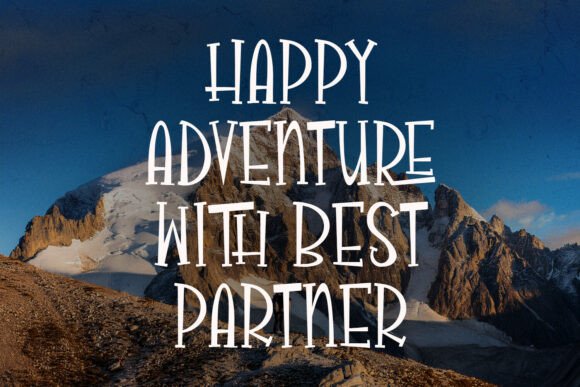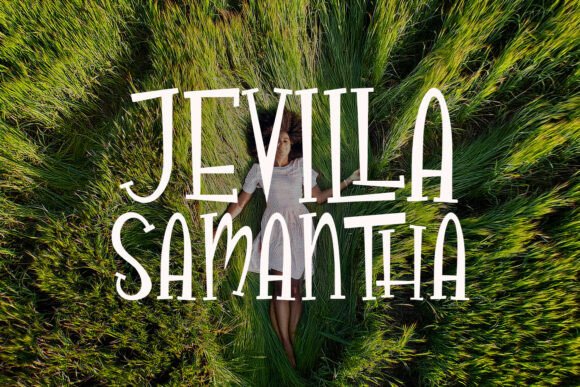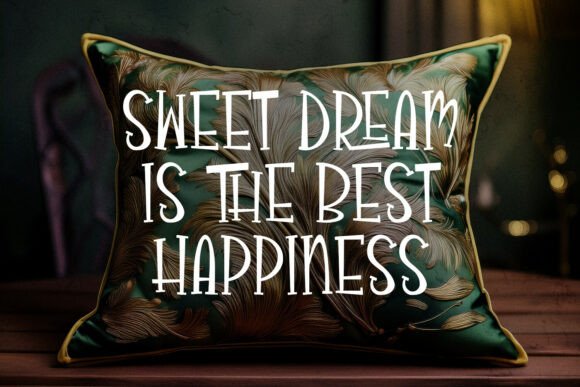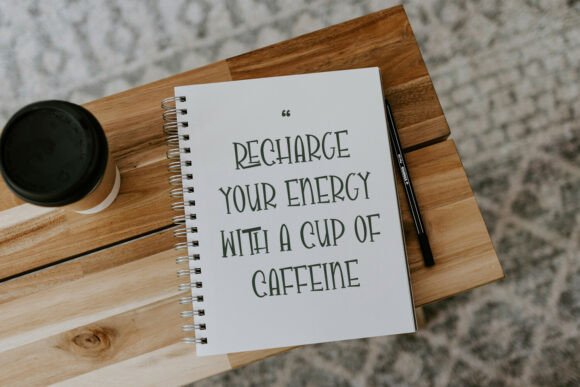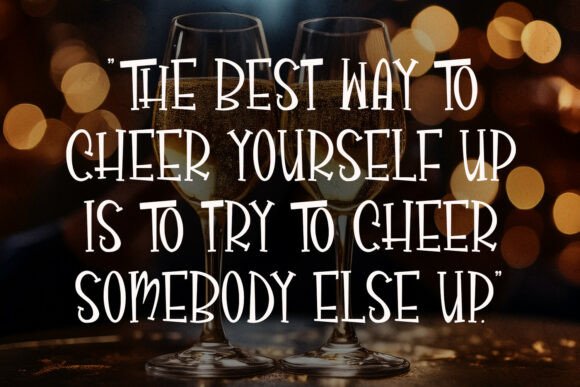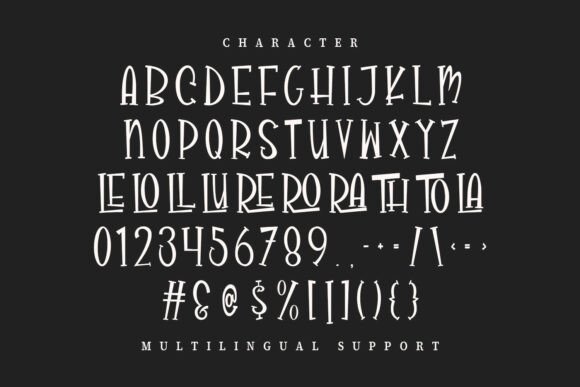
Introduction to Molarois Wluzeg Font
As designers, we’ve all been there – stuck on a creative project, searching for that one special element to elevate our work from ordinary to extraordinary. For me, that moment came when I stumbled upon the enchanting Molarois Wluzeg Font. Its unique blend of mid-century flair and modern, storybook aesthetic was the perfect match for the whimsical design I had in mind. With its tall and expressive feel, Molarois Wluzeg Font adds a touch of “organized chaos” to any design, making it a valuable resource for creative professionals.
This charming serif display font is designed to capture a sense of wonder and creative freedom, making it a standout choice for designers seeking a high-quality design resource. Whether you’re working on editorial layouts, boutique interior branding, or artisanal product labels, Molarois Wluzeg Font is sure to provide an authentic, artisanal aesthetic that stands out.
Key Features of Molarois Wluzeg Font
- Unique, hand-drawn design perfect for creative projects and artistic expressions
- High-quality font with transparent background for seamless integration into any design
- Features a large character set, including uppercase and lowercase letters, numbers, and punctuation marks
- Perfect for use in graphic design, digital art, and other creative projects where a unique and eye-catching font is required
Honest Review: Molarois Wluzeg Font
One of the standout features of Molarois Wluzeg Font is its transparent background, which makes it perfect for creative projects that require a lot of layering. It’s also incredibly versatile, and I’ve used it for everything from logos to typography-based designs.
Here are some things that work well with Molarois Wluzeg Font:
- Unique design that adds a touch of personality to any project
- High quality that ensures crisp, clear text even at large sizes
- Transparent background for easy layering and customization
- Perfect for creative projects, such as posters, flyers, and brochures
However, I do have to mention a few limitations:
- Not suitable for body text due to its unconventional design
Overall, I’m really impressed with Molarois Wluzeg Font, and I would highly recommend it as a design resource for any creative project. Just be sure to use it judiciously and in the right context.
Tips for Getting the Most Out of Molarois Wluzeg Font
To get the most out of Molarois Wluzeg Font, use it on a high-quality design resource, such as a transparent background. This will allow you to use the font effectively in your creative project. Additionally, experiment with different font sizes and styles to add visual interest to your design.
Molarois Wluzeg Font is a versatile font that can be used in a variety of creative projects, such as designing a logo, creating a social media graphic, or making a presentation. Its high-quality design and transparent background make it an ideal choice for designers and creatives.